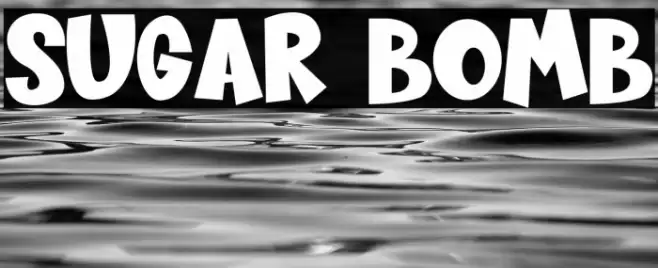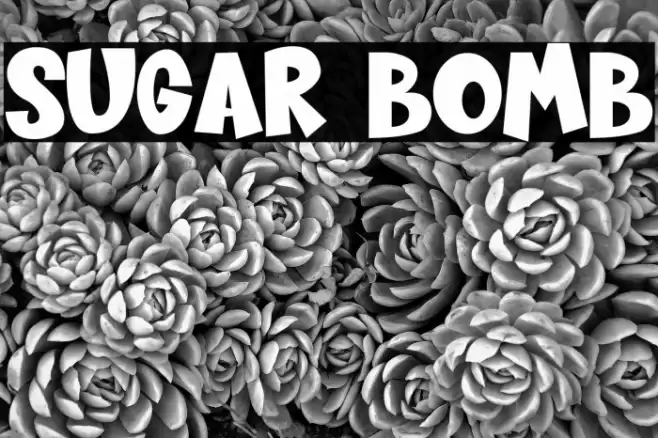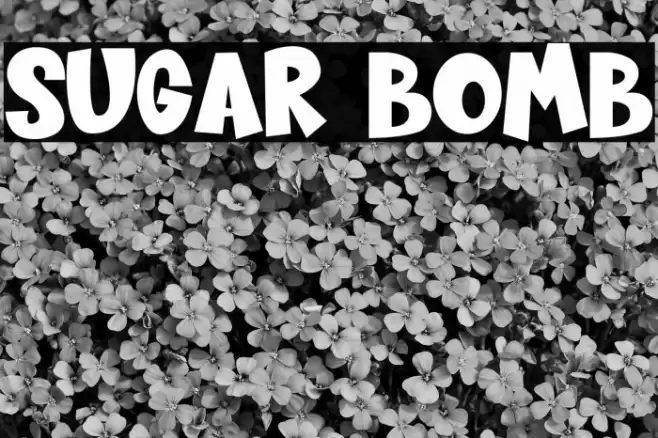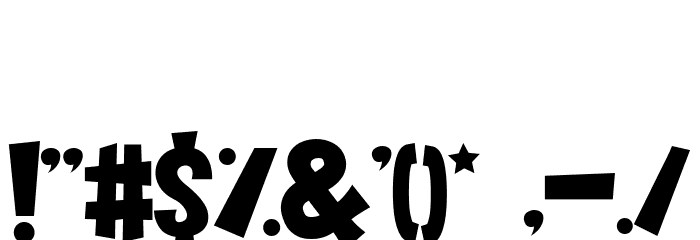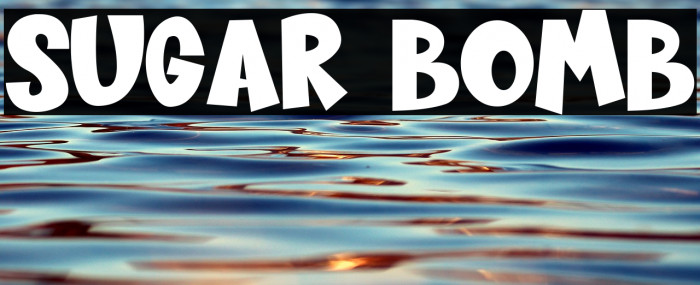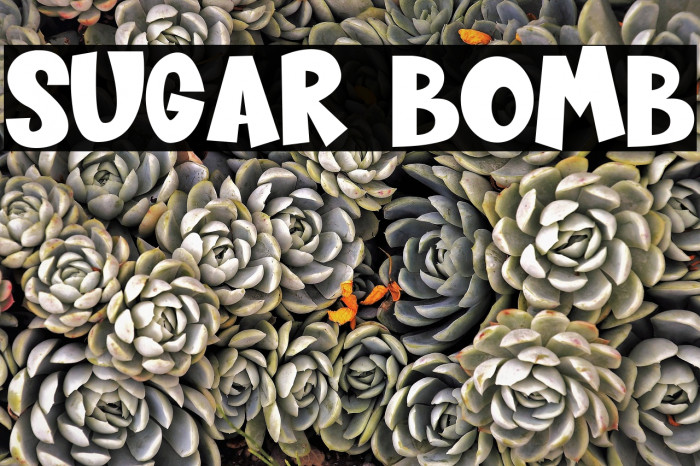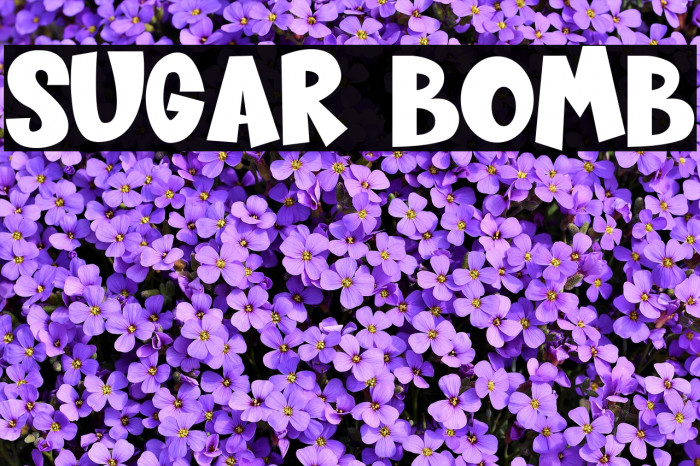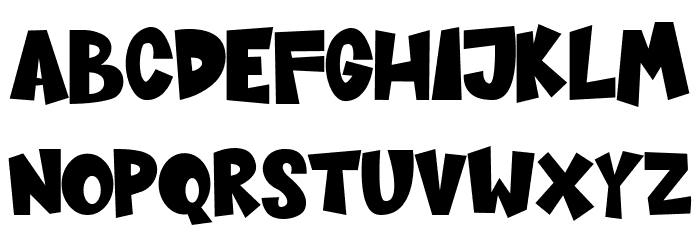
Sugar Bomb Font
Sugar Bomb Description
This font exudes a playful and bold character, with its chunky and irregular letterforms that create a sense of fun and energy. The exaggerated angles and uneven strokes give it a dynamic appearance, making it stand out in any design. The uppercase and lowercase letters maintain a consistent style, with each character exhibiting a unique flair. The numbers and special characters follow the same lively design, ensuring a cohesive look across all text elements. Its boldness and whimsical nature make it ideal for projects that require a touch of humor and creativity.
A bold, playful font with chunky, irregular letterforms and dynamic energy from Cartoon fonts.
- Proposed Projects: Perfect for children's books, comic strips, playful branding, and event posters.
- Overall Style: Playful, Energetic